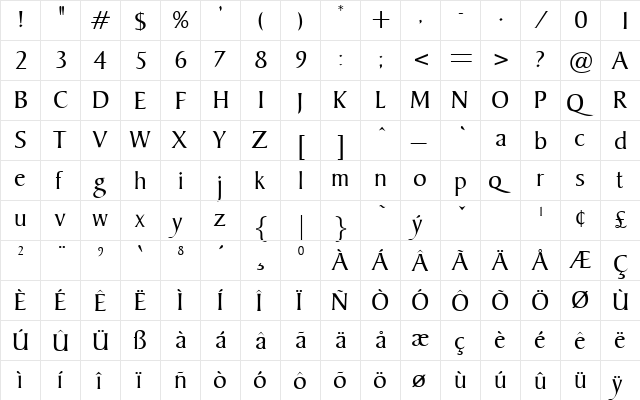
Kennington Regular
Design Context for Kennington Typeface
Kennington offers clean, dependable letterforms without strong stylistic allegiance, making it a practical choice for designers who need flexibility.
Pro Tip: Use Kennington in both headline and body roles to test its range before committing to a single application.